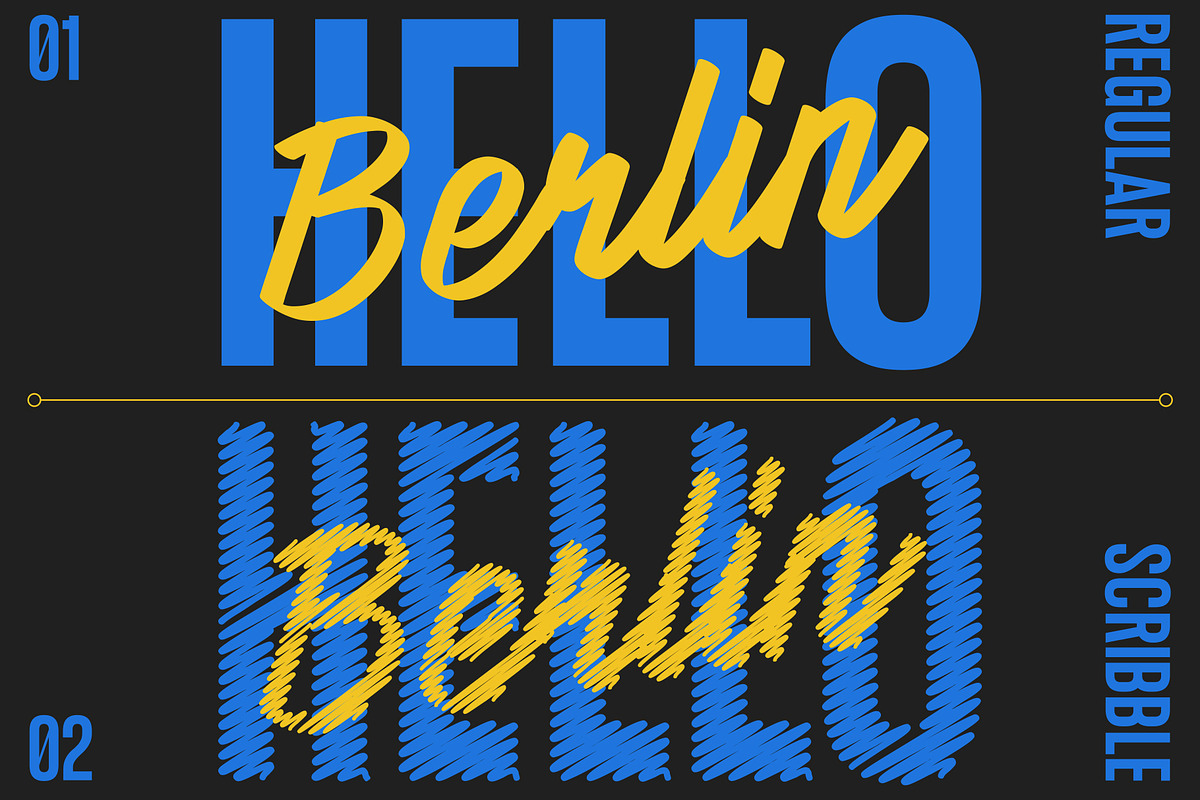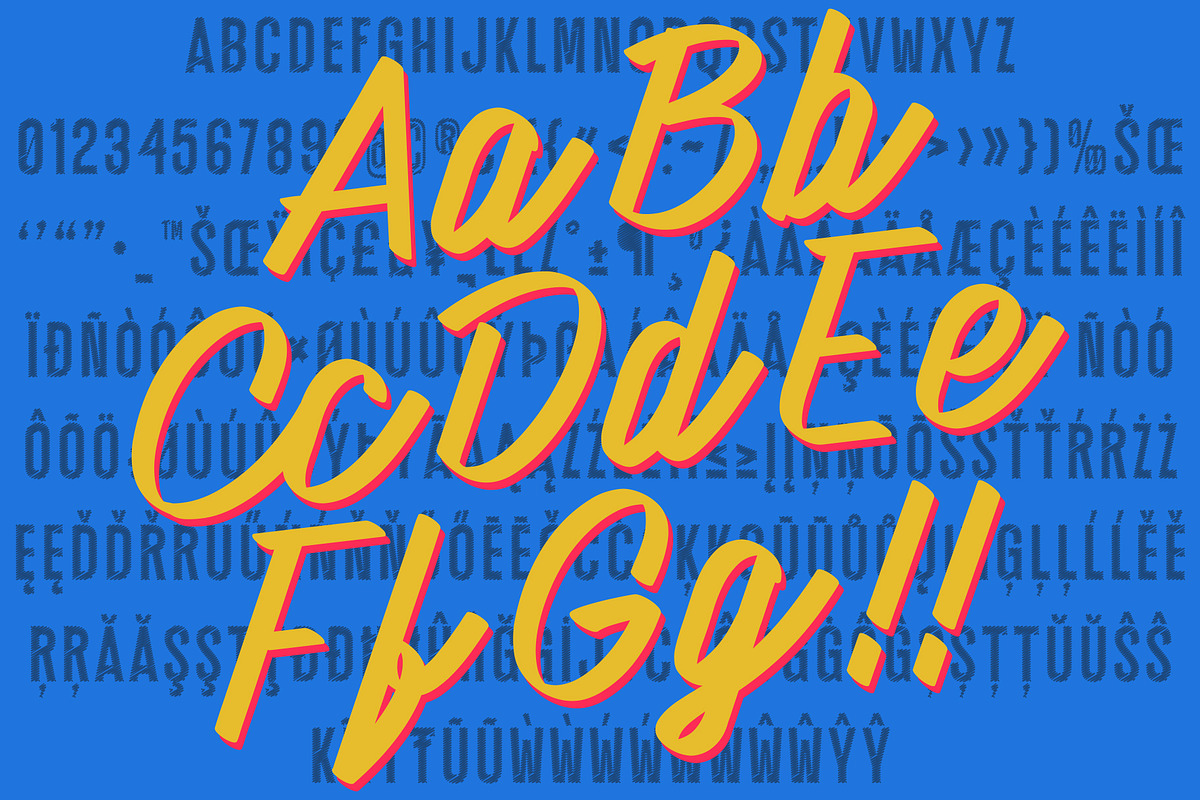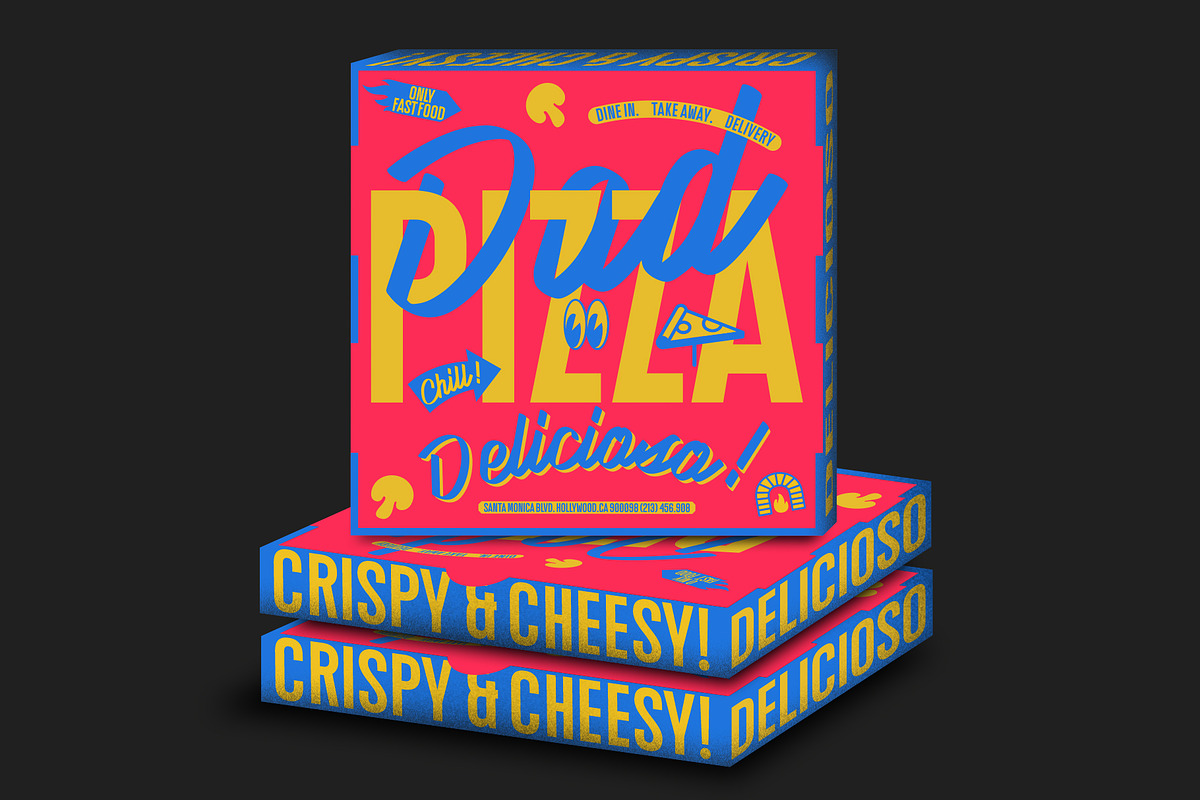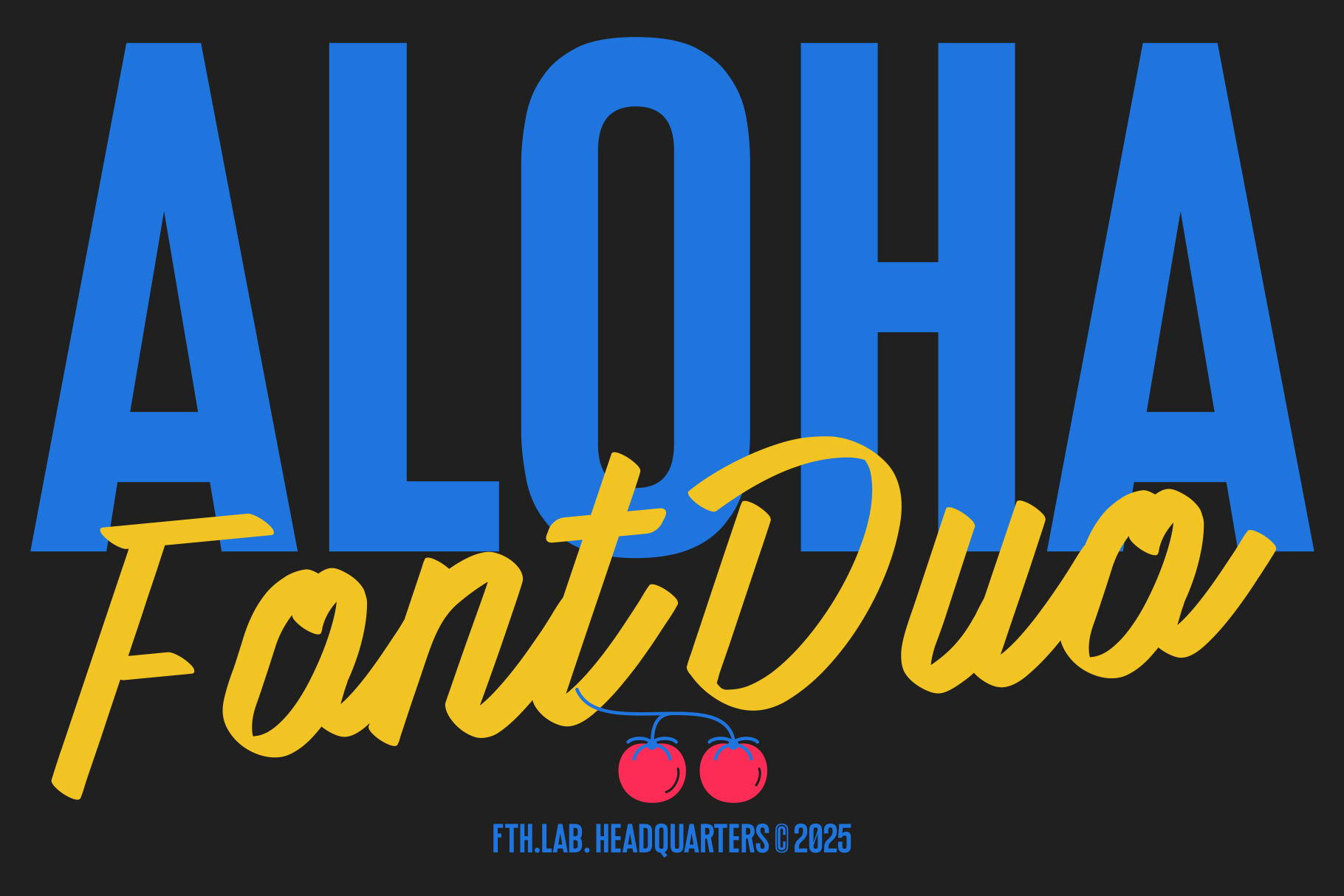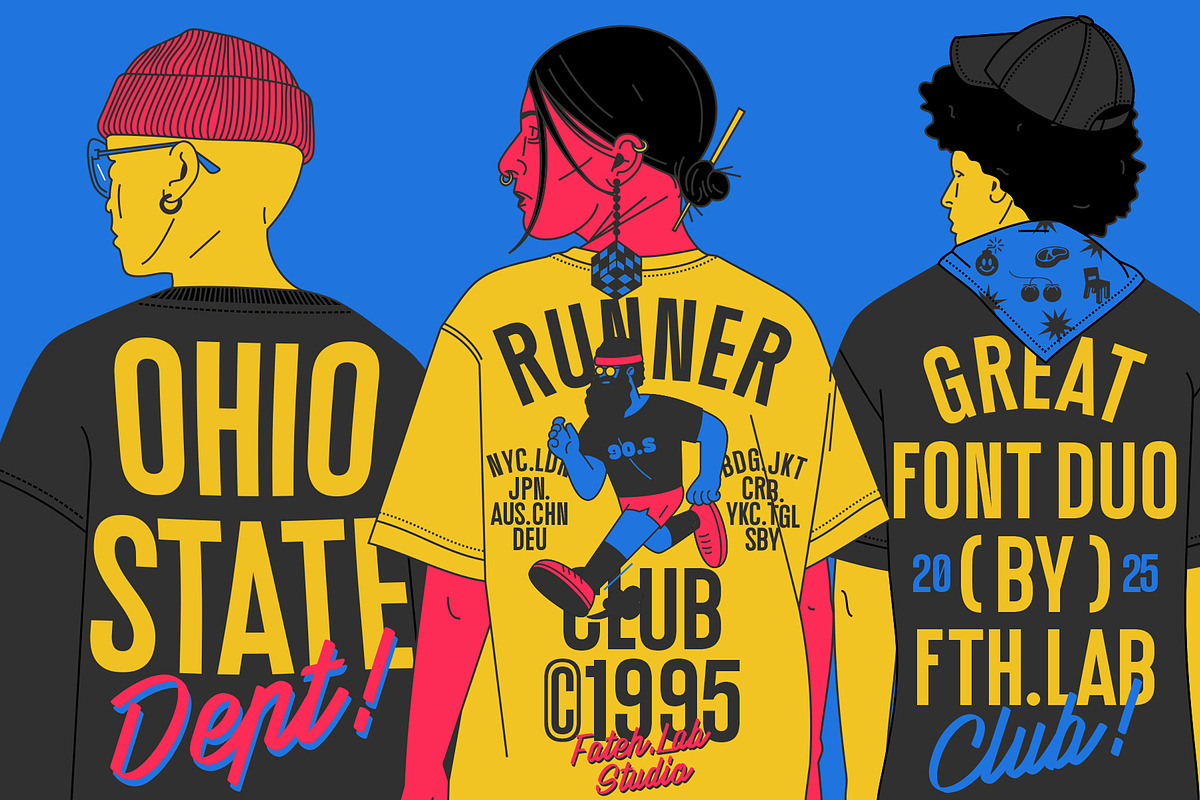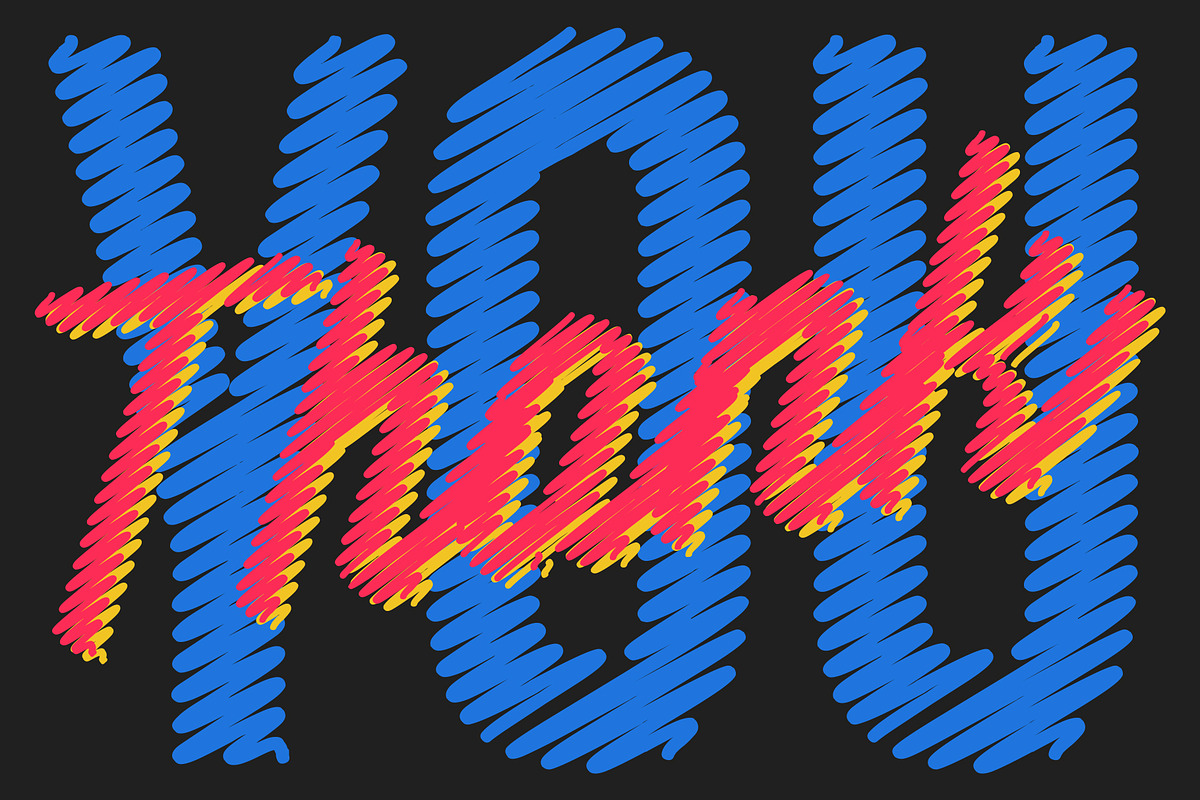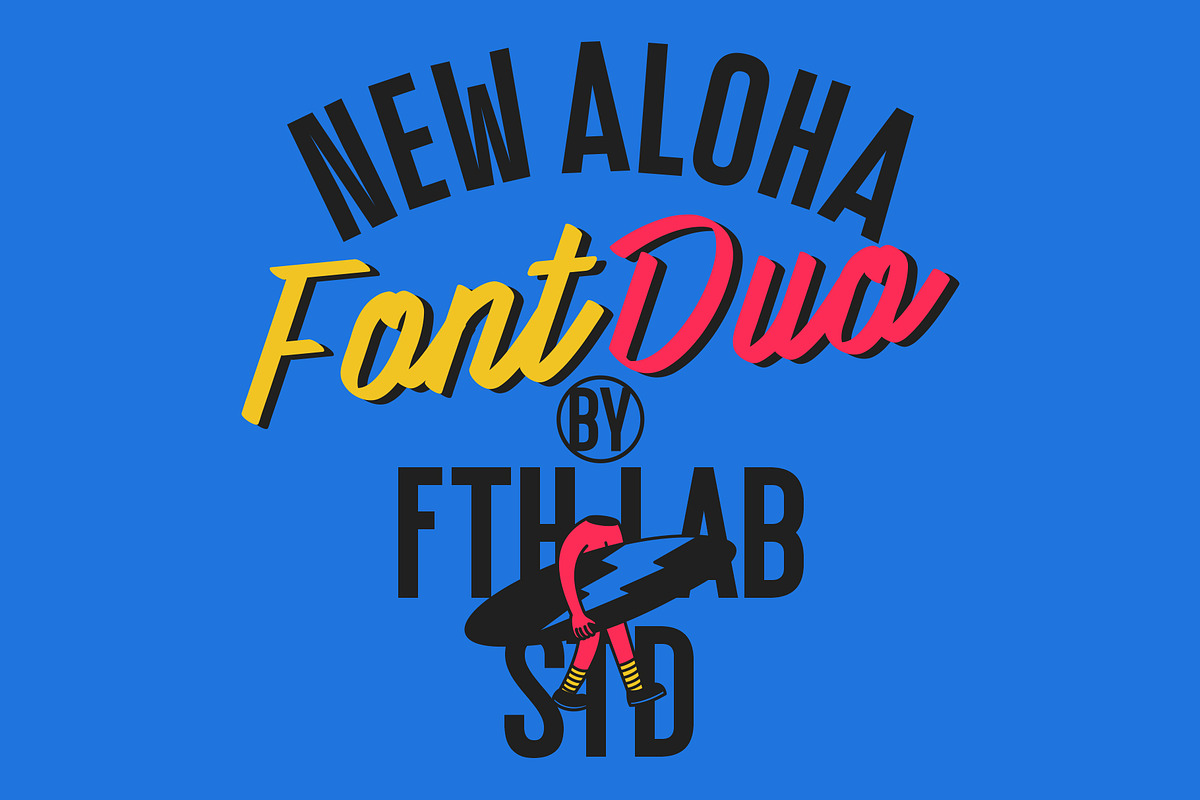
ALOHA | FONT DUO
Aloha is a duo font that is very suitable to be combined with current fashion themes. combined with a number of illustrations and it makes a more beautiful look, these beautiful fonts will be perfect to combine in your design. Suitable for t-shirts, packaging product, prints, magazine or book cover, business cards, material branding, poster quotes, Clothing, wedding invitations, blog posts, social media, digital letters, and many more interesting!